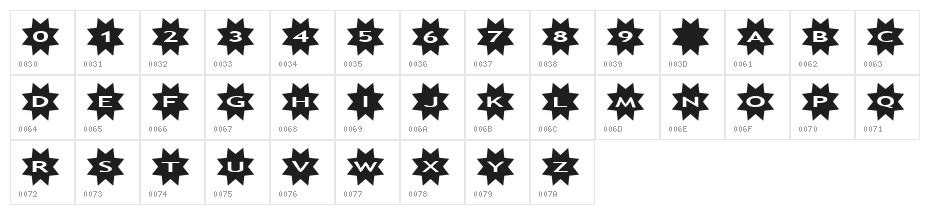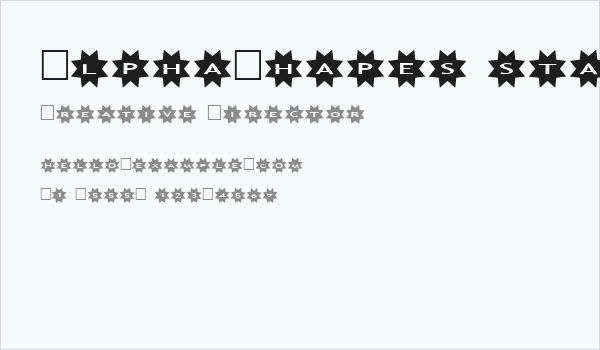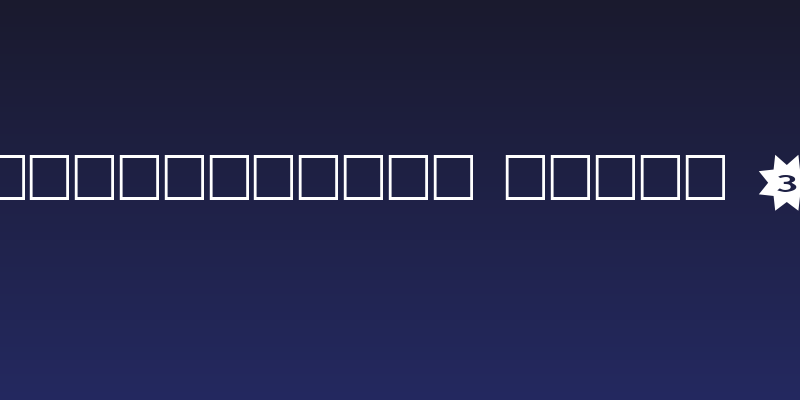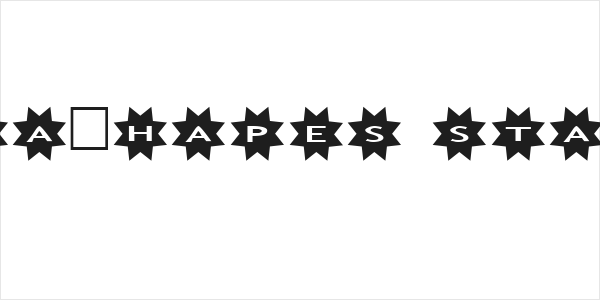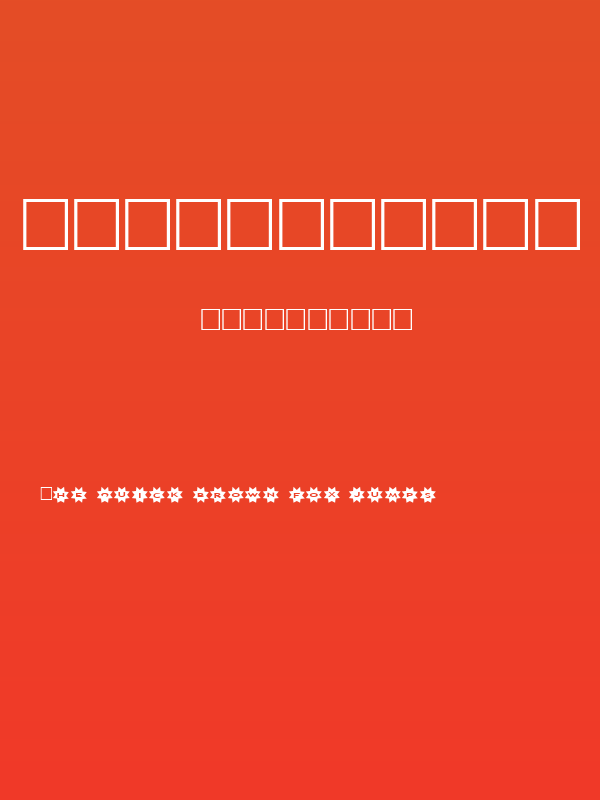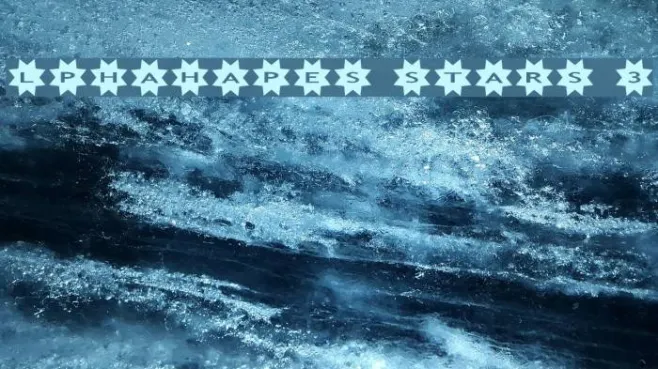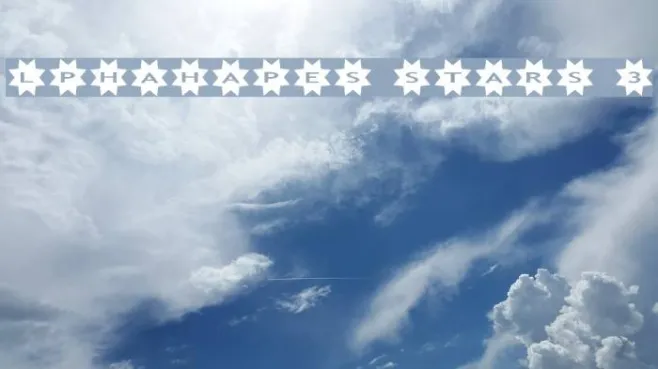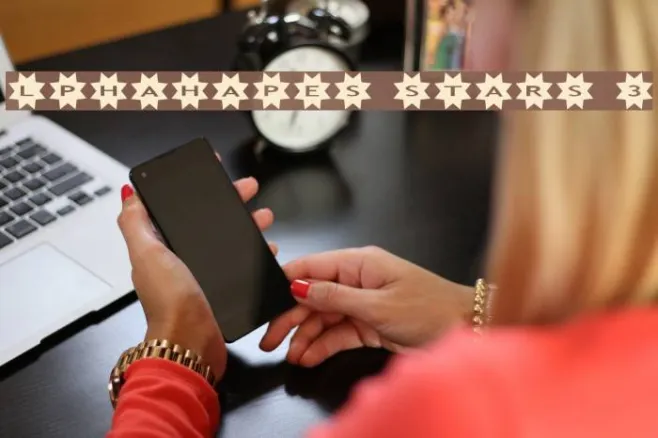
AlphaShapes stars 3 Font
AlphaShapes stars 3 Description
This decorative font features bold, uppercase letters and numbers encased within star-shaped outlines. Each character is centered within a solid star, giving the font a playful and eye-catching appearance. The boldness of the characters ensures high visibility, making it suitable for designs that require a strong visual impact. The uniformity of the star shapes provides a consistent and cohesive look across all characters, while the bold strokes of the letters add to the font's striking presence. This font is ideal for projects that aim to capture attention and convey a sense of fun and creativity.
| Proposed Projects | Ideal for children's book covers, party invitations, event posters, and playful branding. |